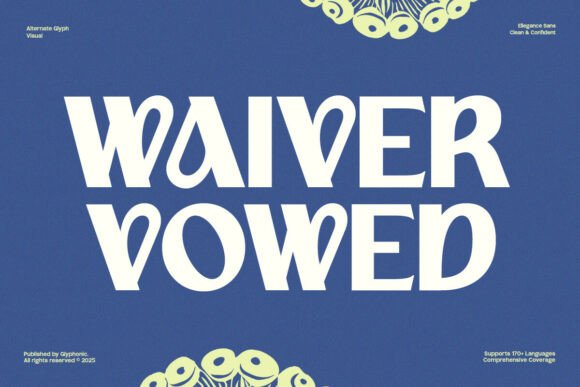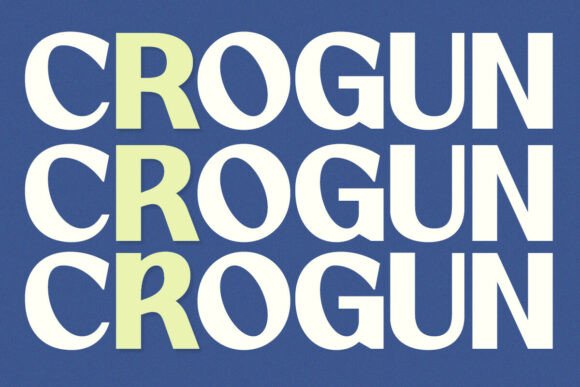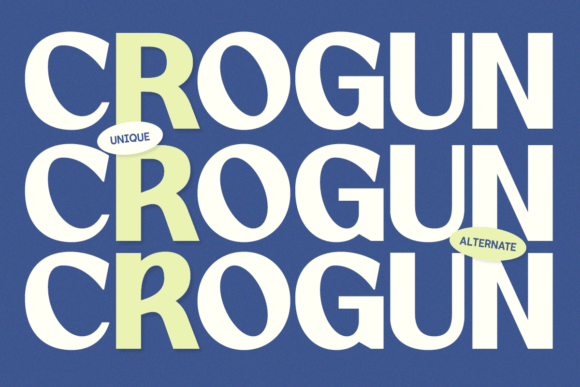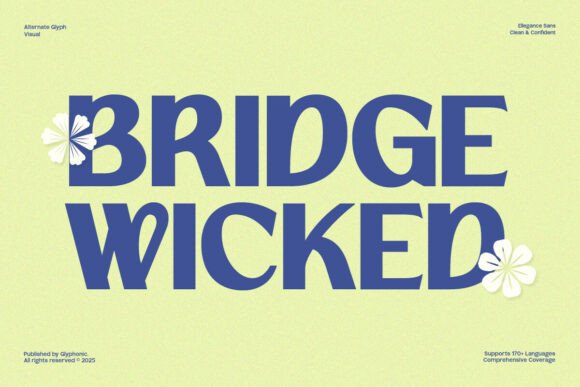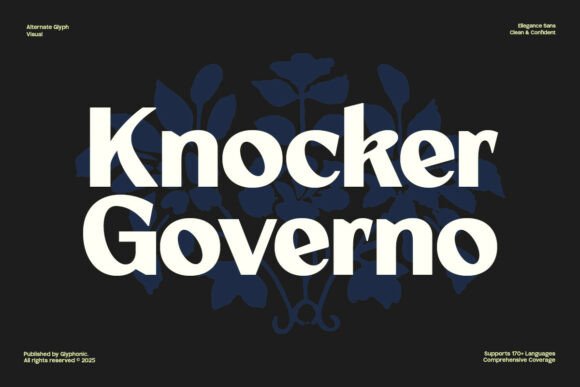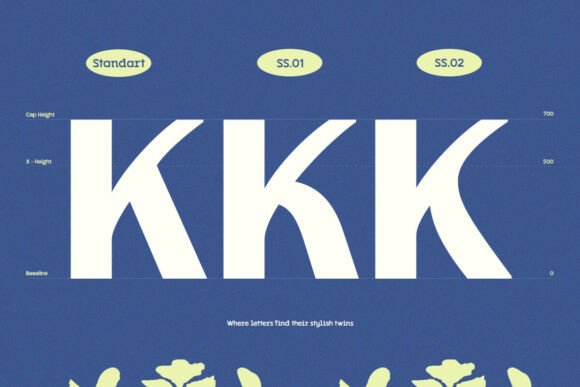
Discover the Elegance of GC Kroven Font: A Modern Sans Serif Typeface
In the world of typography, finding the perfect font that combines elegance, clarity, and versatility can be a daunting task. However, for designers and crafters looking for a typeface that embodies modern sophistication, GC Kroven is an exceptional choice. This modern sans serif font is meticulously designed to deliver a bold yet refined statement in every use, making it perfectly suited for a wide range of design applications.
Timeless Elegance Meets Confident Clarity
GC Kroven strikes a perfect balance between timeless elegance and confident clarity. Its clean lines and balanced proportions ensure that any design stands out with a touch of sophistication. The subtle geometric touches add a layer of personality, making it an ideal choice for designers who aim to create visually appealing and impactful works. Whether you’re working on headlines, branding, logos, packaging, or editorial layouts, GC Kroven is designed to elevate your designs.
One of the key advantages of GC Kroven is its versatility. This typeface is not limited to a specific style or industry, making it a valuable asset for designers working on various projects. For fashion, lifestyle, or contemporary branding, GC Kroven offers a blend of personality and sophistication that can enhance any design. Its adaptability ensures that it can be used in a multitude of contexts, from digital media to print, without losing its impact.
PUA-Encoded for Effortless Customization
GC Kroven font is PUA-encoded, which means it offers effortless access to all glyphs, swashes, and alternate characters. This feature is particularly beneficial for designers who wish to customize their creations with ease. The ability to access a wide range of characters and swashes allows for greater creativity and flexibility, enabling designers to produce unique and personalized designs without the need for extensive typographic adjustments.
Key Features of GC Kroven Font
- Modern Sans Serif Typeface: A clean and contemporary design that suits a wide range of applications.
- Timeless Elegance: Combines classic elements with a modern twist for enduring style.
- Confident Clarity: Ensures readability and impact, making it perfect for headlines and branding.
- Balanced Proportions: Carefully crafted to ensure harmony and aesthetic appeal.
- Subtle Geometric Touches: Adds a layer of sophistication and personality.
- PUA-Encoded: Provides easy access to glyphs, swashes, and alternate characters for customization.
Applications of GC Kroven Font
The applications of GC Kroven are vast and varied. Here are a few areas where this typeface truly shines:
- Headlines and Titles: Its bold and elegant design makes it perfect for grabbing attention.
- Branding and Logos: Offers a sophisticated look that can elevate a brand’s visual identity.
- Packaging: Adds a touch of elegance and professionalism to product packaging.
- Editorial Layouts: Enhances the readability and aesthetic appeal of editorial content.
- Fashion and Lifestyle: Brings a modern and stylish vibe to designs in these industries.
GC Kroven is more than just a typeface; it’s a design statement. With its modern sans serif design, timeless elegance, and confident clarity, it offers designers a versatile tool to bring sophistication and personality to their creations. Whether you’re a professional designer or a crafter, GC Kroven font is an excellent addition to your typographic arsenal. Its PUA-encoded feature ensures that you have the flexibility to customize your designs effortlessly. For those looking to make a bold yet refined statement in their designs, GC Kroven is undoubtedly a top choice.
Embrace the elegance and versatility of GC Kroven font in your next design project and experience the difference it can make.